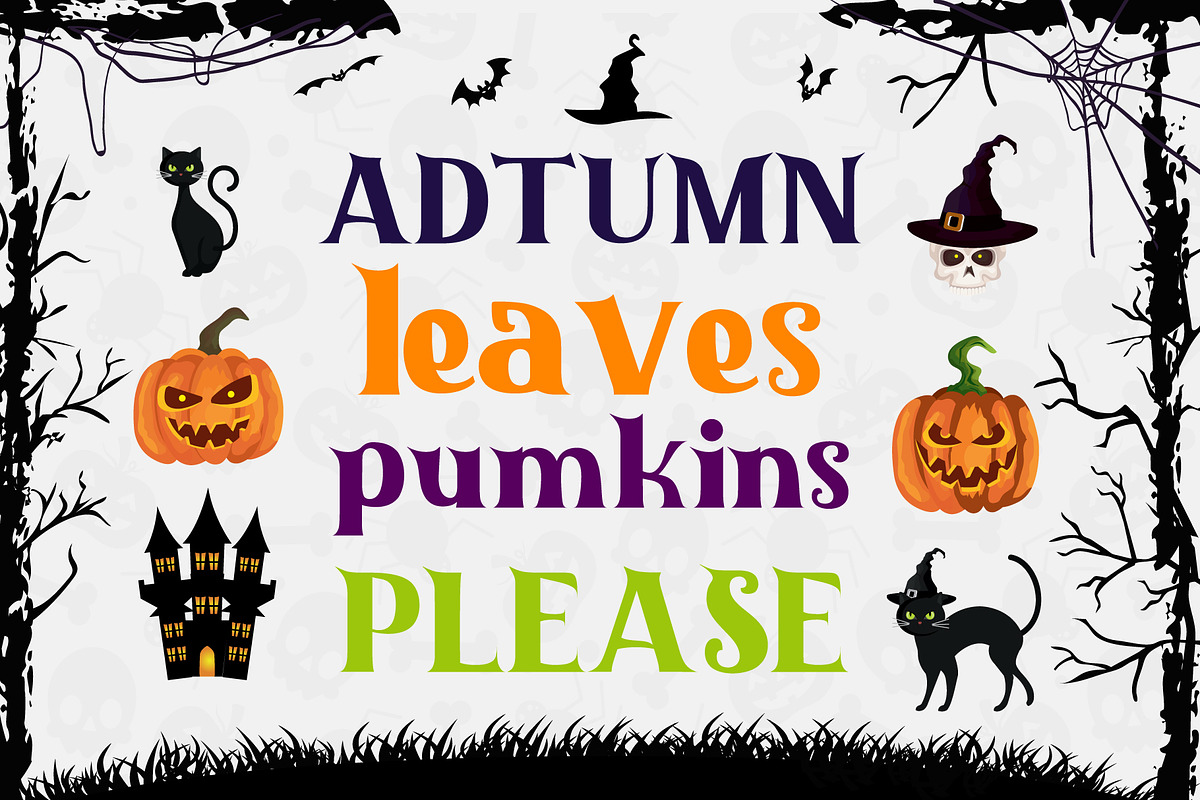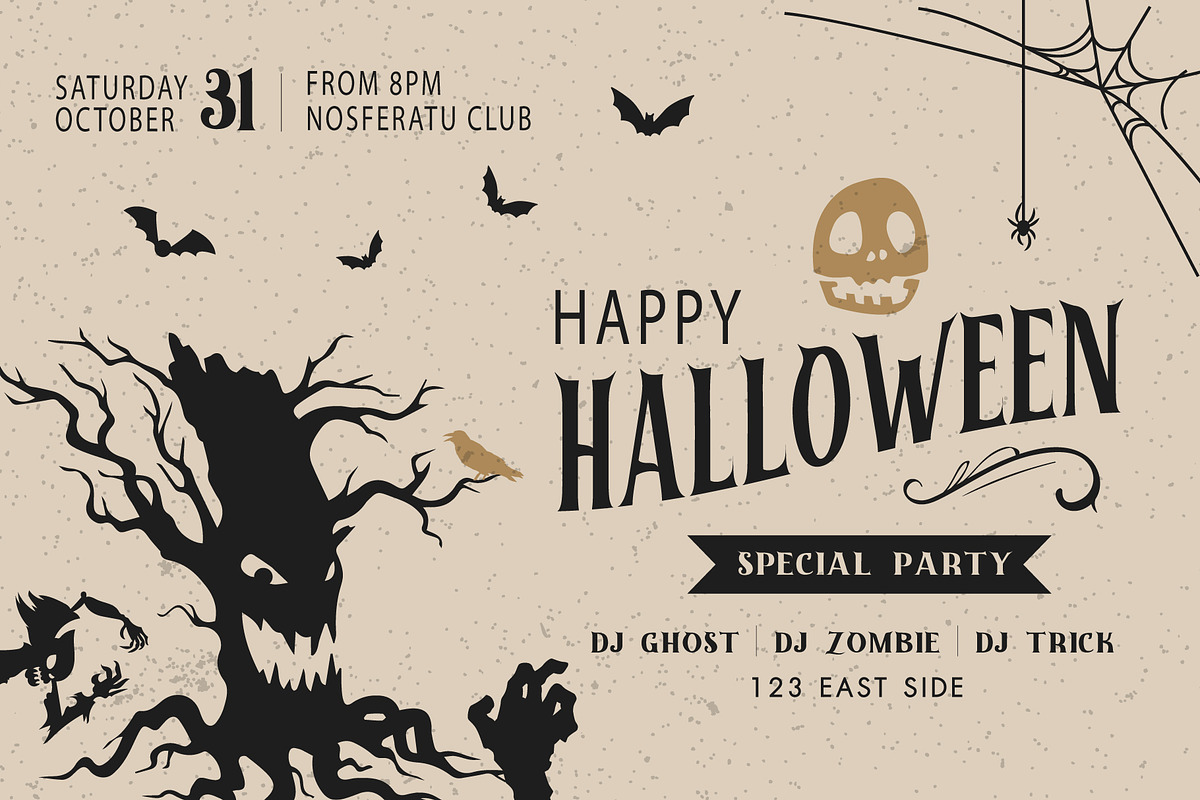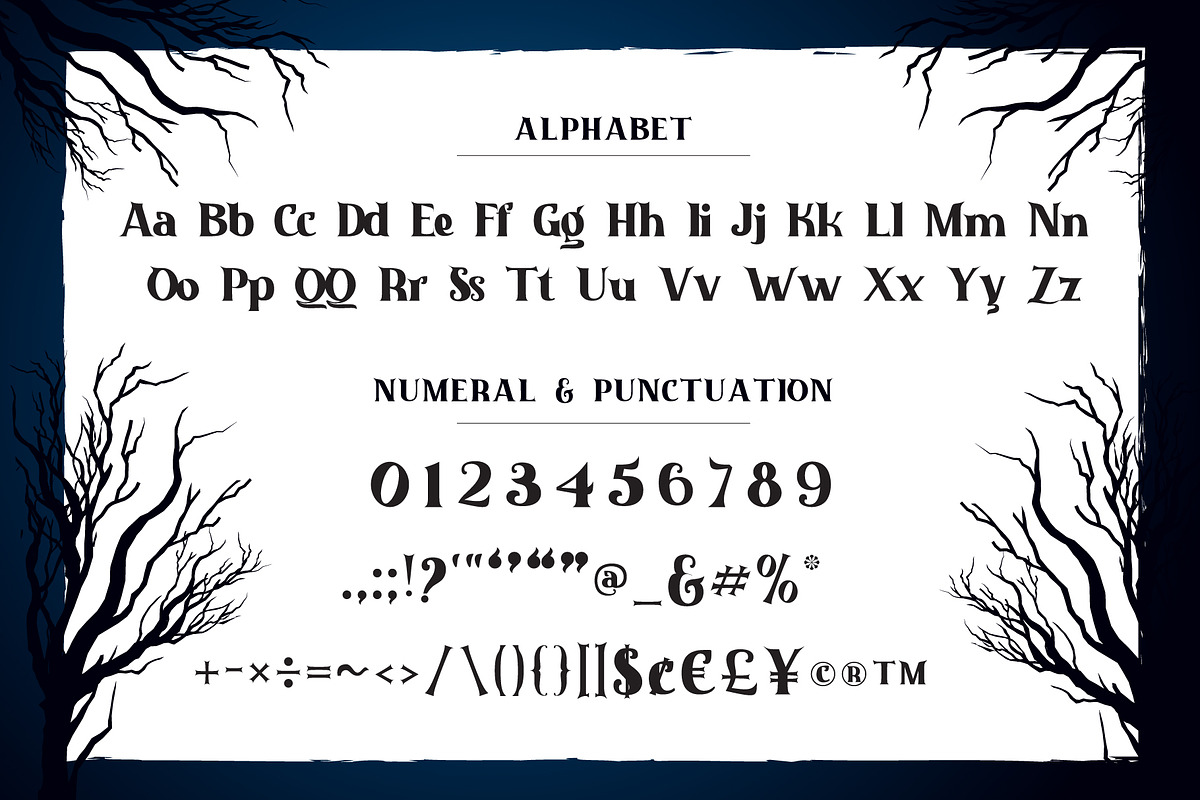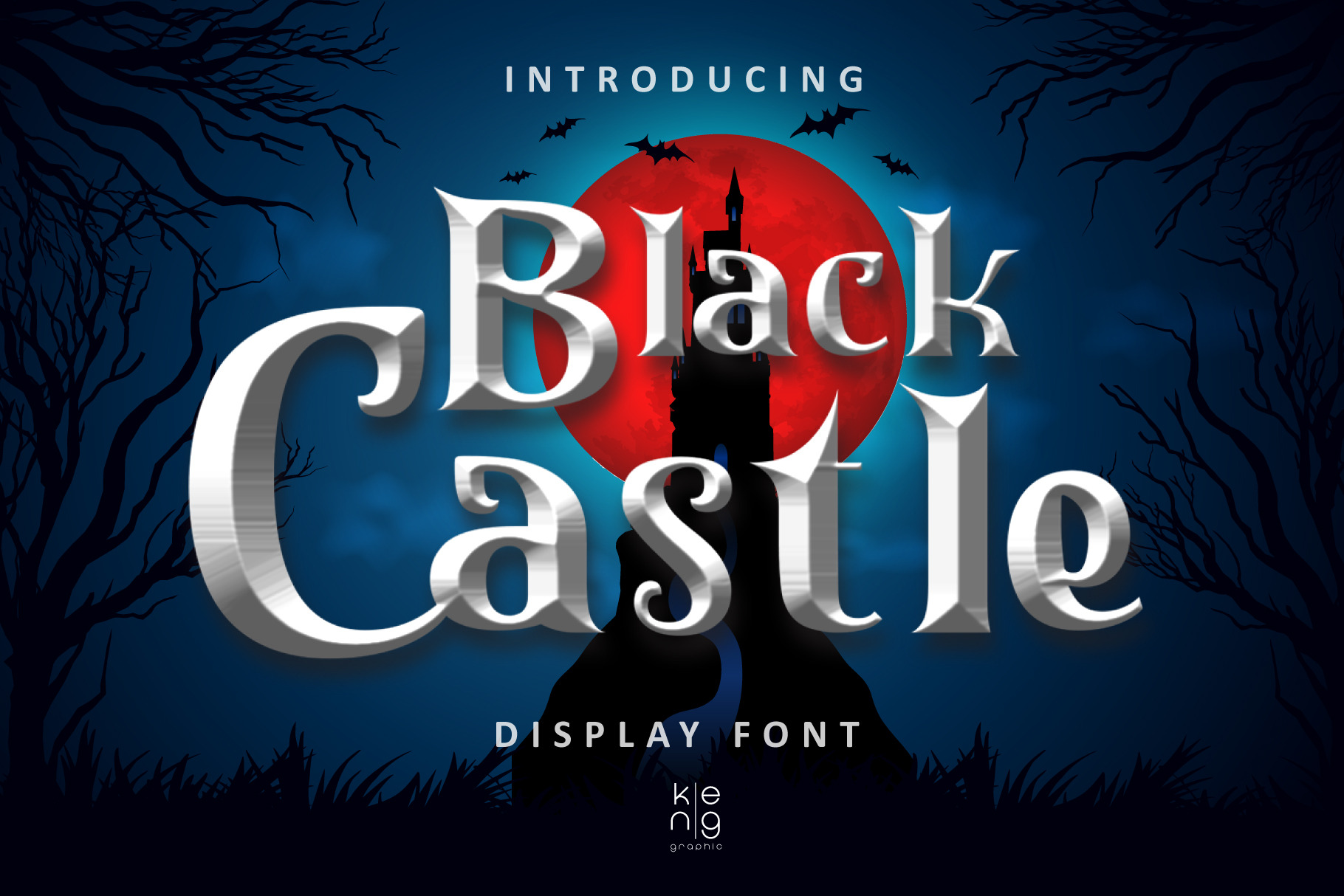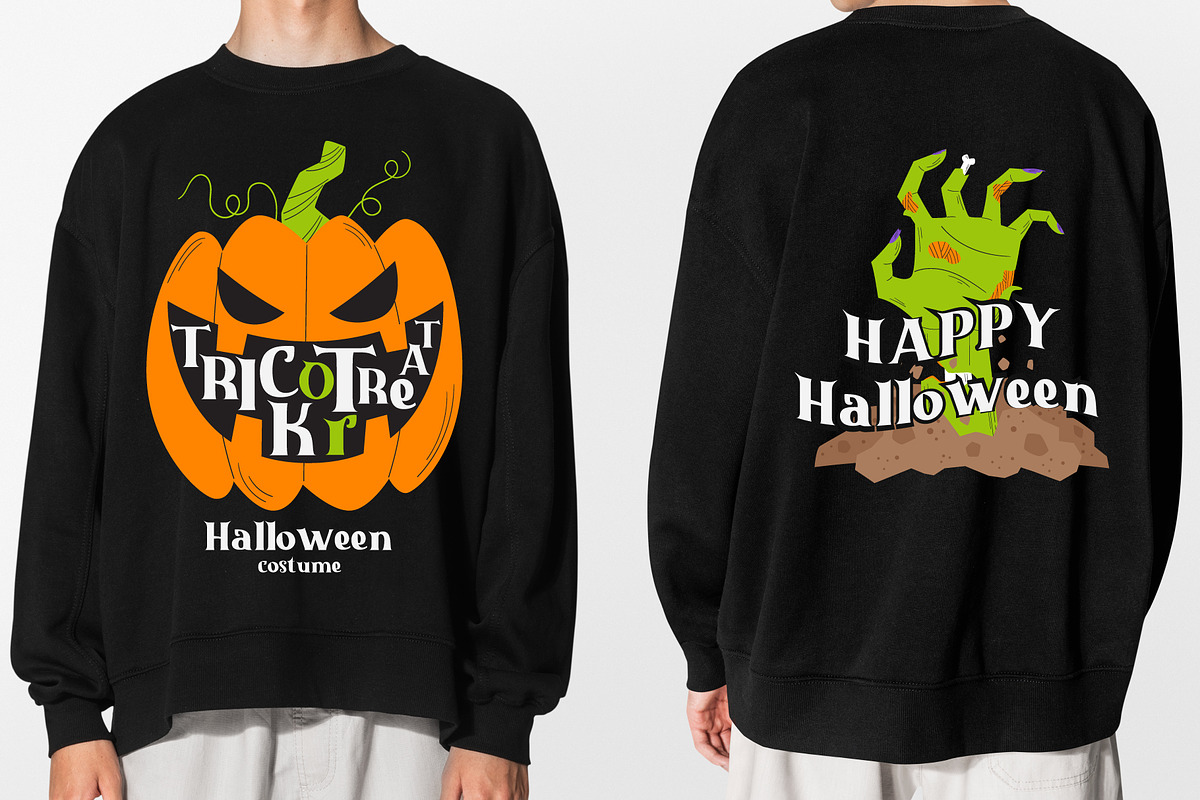
Black Castle Font
Black Castle is a bold and modern slab serif font that has been expertly designed to give your creations a whimsical look. This font has the potential to take your creativity further.